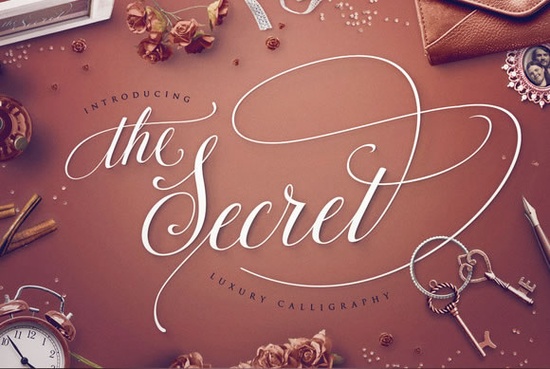
Finding a calligraphy font that looks beautiful and gives you enough flexibility for different projects is harder than it sounds. The Secret Font is a hand-crafted script typeface with 689 glyphs, over 50 end-swashes, and built-in features like contextual alternates and stylistic sets. It's often compared to popular alternatives like Samantha script and Magnolia Sky but it has its own personality that stands on its own.
Whether you're designing wedding invitations, branding materials, or print-on-demand products, this font gives you a lot to work with. Let's break down what makes it worth a closer look.
What makes The Secret Font different from other calligraphy fonts?
A lot of script fonts look nice at first glance but fall apart when you start using them in real projects. Letters don't connect well, spacing feels off, or there simply aren't enough alternate characters to keep things fresh.
The Secret was built with coherence as the top priority. Every single glyph was drawn, tested, redrawn, and digitally optimized to make sure letters integrate naturally. The creator focused on striking a balance between three things:
- Elegance the letterforms have a refined, flowing quality
- Usability it works across personal and professional projects
- Readability even at smaller sizes, text remains clear
The 50+ end-swashes were all hand-crafted to give you natural-looking flourishes without feeling overdone. That kind of attention to detail isn't common in fonts at this price point.
What features does it include?
The Secret comes packed with OpenType features that make design work easier, especially if you're using software like Adobe Illustrator or Photoshop. Here's what's built in:
- Contextual Alternates the font automatically swaps characters based on surrounding letters for more natural-looking connections
- Discretionary Ligatures special letter pairings that add flair to headlines and logos
- Stylistic Alternates different versions of letters you can swap in manually
- Swashes & Swooshes decorative extensions for beginning and ending letters
- PUA Encoding all characters are accessible through character map tools, even in software that doesn't fully support OpenType
One thing that stands out: if you're working in Photoshop or Illustrator with OpenType features turned on, the font automatically selects the best character variations without you needing to dig through the glyphs panel. That saves real time when you're on a deadline.
Yes. The Secret was designed for both personal and professional use. That means you can use it for:
- Wedding invitations and event stationery
- Business cards and brochures
- Logo design and branding
- Print-on-demand products like mugs, t-shirts, and tote bags
- Social media graphics and digital content
The large glyph count is especially useful if you sell POD designs or create branding packages. You can use the same font across multiple projects and still produce something that looks completely different each time just by mixing alternate characters and swashes.
How does it compare to similar script fonts?
The Secret sits in the same category as other elegant calligraphy fonts, but it offers more glyphs than many competitors. If you've been looking at options like the elegant styles found in the wedding beauty script font or the playful character of the sweet honey script font, The Secret brings a versatile middle ground refined enough for formal invitations, yet approachable enough for casual branding.
For crafters who enjoy mixing styles, it pairs nicely with clean sans-serifs and works alongside other decorative fonts like the honey notes script for layered designs. If you're specifically building a wedding font collection, it's a strong addition. And for projects that call for a more rugged, hand-lettered feel, you might also want to explore the highway heritage script font for contrast.
Is it worth trying?
If you need a calligraphy font that goes beyond surface-level beauty one with real depth in its character set and smart OpenType features The Secret delivers. The amount of built-in swashes and alternates means you won't need to supplement it with extra decorative elements as often as you would with simpler script fonts.